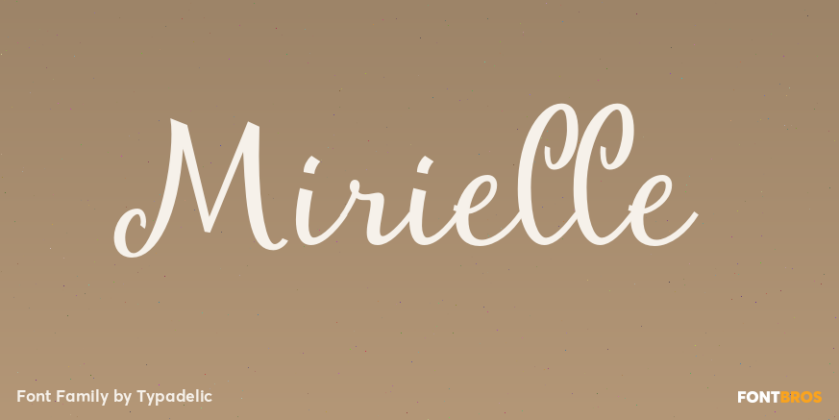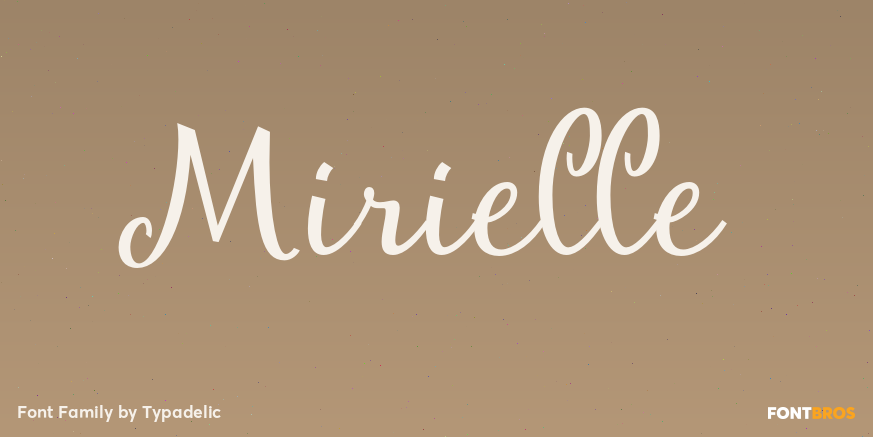
HomeFont BrosHandwrittenMirielle HandwrittenScripts: CasualWacky Mirielle FacebookXPinterestWhatsApp 1 of 1 About Mirielle is curvy yet angular, whimsical yet orderly. As with all Typadelic fonts, this script typeface is unique and original, with a playful twist.  DOWNLOAD ON FONT BROSThis font is sold and delivered by Font Bros. Font Canyon may earn a commission if you buy through this link. People also explored Kindlovely Font Diary Rabbit Font Bondy Quirky Font Mock-Up Farmhouse Sign Hunzello Thin Font Beer Glass Mockup Candle Light Font Mellow Love Donuts Font 318 0 TagsMirielle Font Previous articlePretaNext articlePrintf LEAVE A REPLY Cancel reply Comment: Please enter your comment! Name:* Please enter your name here Email:* You have entered an incorrect email address! Please enter your email address here Website: Save my name, email, and website in this browser for the next time I comment. Personal Use Free Degrassi Personal Use Free Read more about this font Hello Sarrah Personal Use Free Read more about this font Gonestones Personal Use Free Read more about this font Fillguy Font Personal Use Free Read more about this font BLOG 5 Fonts That Will Dominate Design Trends in 2026 5 Fonts for 2026 That Will Dominate Design Trends Typography plays a critical role in visual communication, and as we look ahead to 2026, it’s... How to Cut Any Font on Cricut: Convert a Font to SVG (Free) Fonts That Capture the Spirit of New York City Where to Buy American Fonts Online in 2024